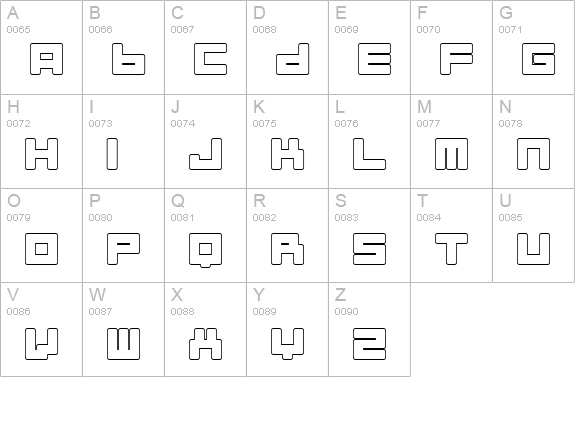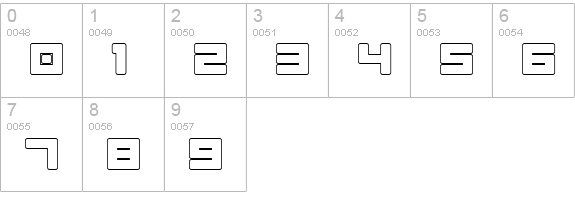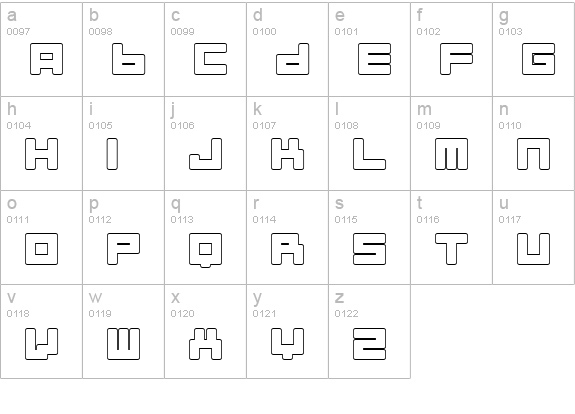
Almanaque Outline Font Details
Almanaque Outline font is a versatile and modern typeface that exudes elegance and sophistication. With its sleek lines and stylish design, this font is perfect for adding a touch of class to any project. Whether you're designing a logo, creating a poster, or crafting a website, Almanaque Outline font is sure to make a statement. What sets Almanaque Outline font apart is its unique blend of classic and contemporary elements, making it a truly timeless choice for any design. The clean lines and sharp edges of this font give it a crisp and professional look that is sure to impress. Best of all, Almanaque Outline font is available for free download at FontsMarket.com. So whether you're a professional designer or a hobbyist looking to add some flair to your projects, be sure to check out Almanaque Outline font and see the difference it can make in your designs.